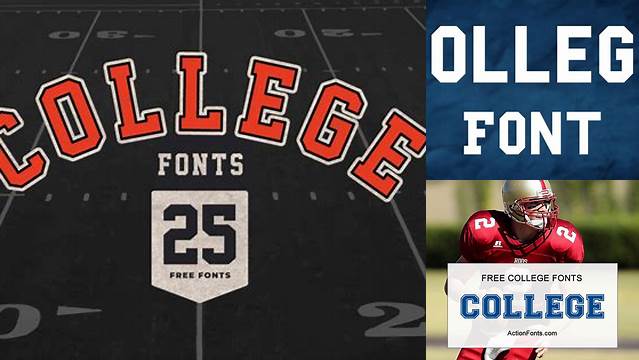
Hey everyone! Today, we're diving headfirst into the awesome world of college fonts and how you can get your hands on them for free. Whether you're a student, a designer, or just someone who loves cool typography, this guide is packed with everything you need to know about finding, downloading, and using the perfect college font to make your projects pop. We will provide you with awesome tips and tricks, we're talking about crafting eye-catching presentations, designing killer flyers, or just spicing up your personal projects. So, grab your favorite beverage, and let's get started!
1. Unveiling the World of College Fonts: What Makes Them Special?
Alright, before we jump into the download links, let's talk about what makes college fonts so darn cool, yeah? College fonts are more than just letters and numbers; they're a visual representation of the spirit and identity of educational institutions. They often reflect a sense of tradition, prestige, and academic excellence, but they can also be modern, edgy, and expressive, reflecting the diverse and vibrant culture of college life. Think about it: these fonts are used everywhere, from official university logos and websites to student organization posters and event announcements. This means that college fonts have a unique ability to communicate a specific message or feeling. They can evoke a sense of nostalgia, professionalism, or even playful energy, depending on the design. You'll find that they usually range from classic serifs to bold sans-serifs, and even some unique custom designs. The specific features of a font, such as the weight, style, and spacing of the letters, play a huge role in how it's perceived. Choosing the right college font is all about matching the vibe of your project with the right visual style. It's about creating a strong first impression and helping your audience understand what you're all about. A well-chosen font can significantly increase the effectiveness of your communication, making it clear and memorable.
Examples of Popular College Font Styles
When it comes to college fonts, you'll find a wide variety of styles that are popular among educational institutions. Here are a few examples:
- Classic Serif Fonts: Times New Roman and Garamond are the go-to for a sense of tradition and academic integrity. You'll see them used in official documents, research papers, and formal announcements.
- Bold Sans-Serif Fonts: Fonts like Helvetica and Arial offer a clean, modern look that's super easy to read. They are commonly used for website headlines, promotional materials, and anything that needs to catch the eye quickly.
- Custom Display Fonts: Many colleges and universities create their own unique fonts that reflect their specific branding. These fonts can be more decorative and distinctive, adding a unique touch to the institution's visual identity.
So, now you have a good understanding of what makes college fonts so unique. Now, let's figure out where to find the best ones.
Important Considerations When Downloading Free Fonts
Before you dive in, there are a few crucial things to keep in mind to ensure your font downloads are safe and legal. First off, you should ALWAYS read the license agreement of any font before downloading. Some fonts are free for personal use only, while others allow commercial use. You also need to pay attention to the terms of the license, as they may have restrictions on how the font can be used or modified. For example, some licenses might require you to give credit to the designer, while others might limit the number of projects you can use the font for. Second, make sure you download fonts from trusted sources, like the websites mentioned above. This helps reduce the risk of malware or viruses. Finally, always keep your fonts organized and backed up. Once you've downloaded a font, store it in a safe place, and make sure to back it up in case something happens to your computer. This will save you from having to re-download fonts in the future.